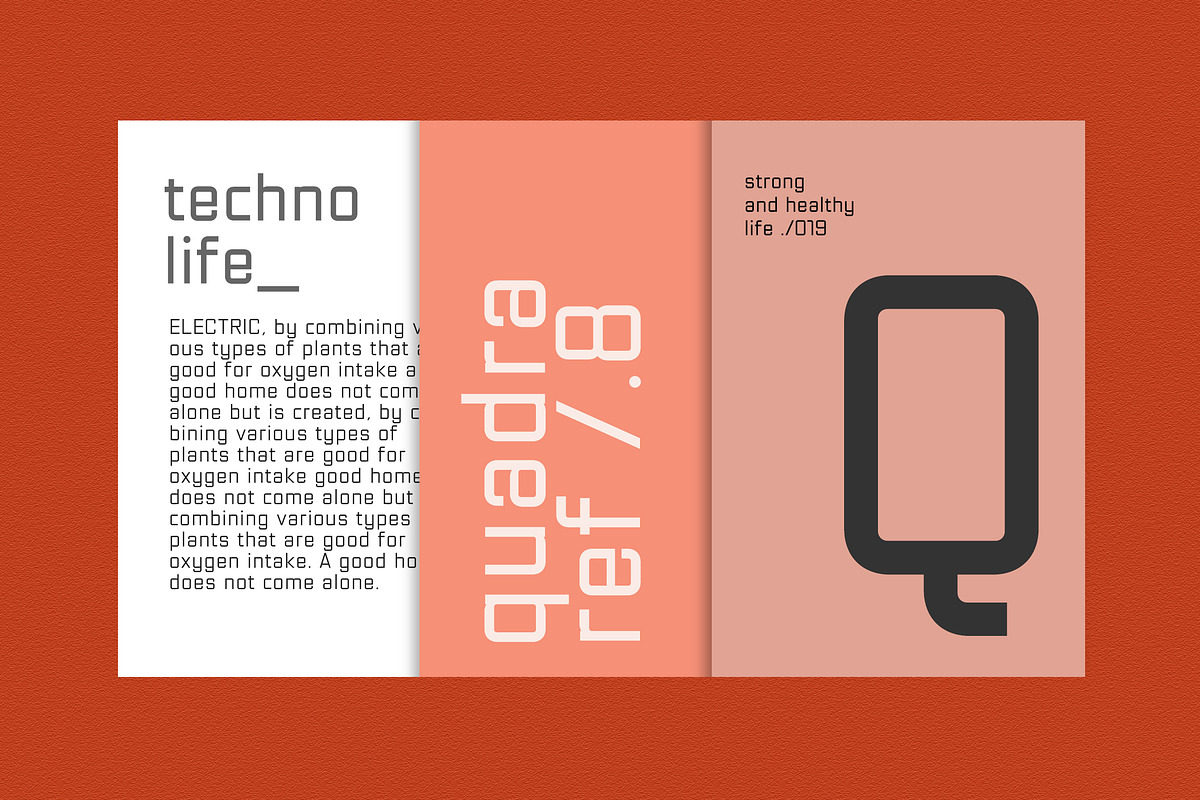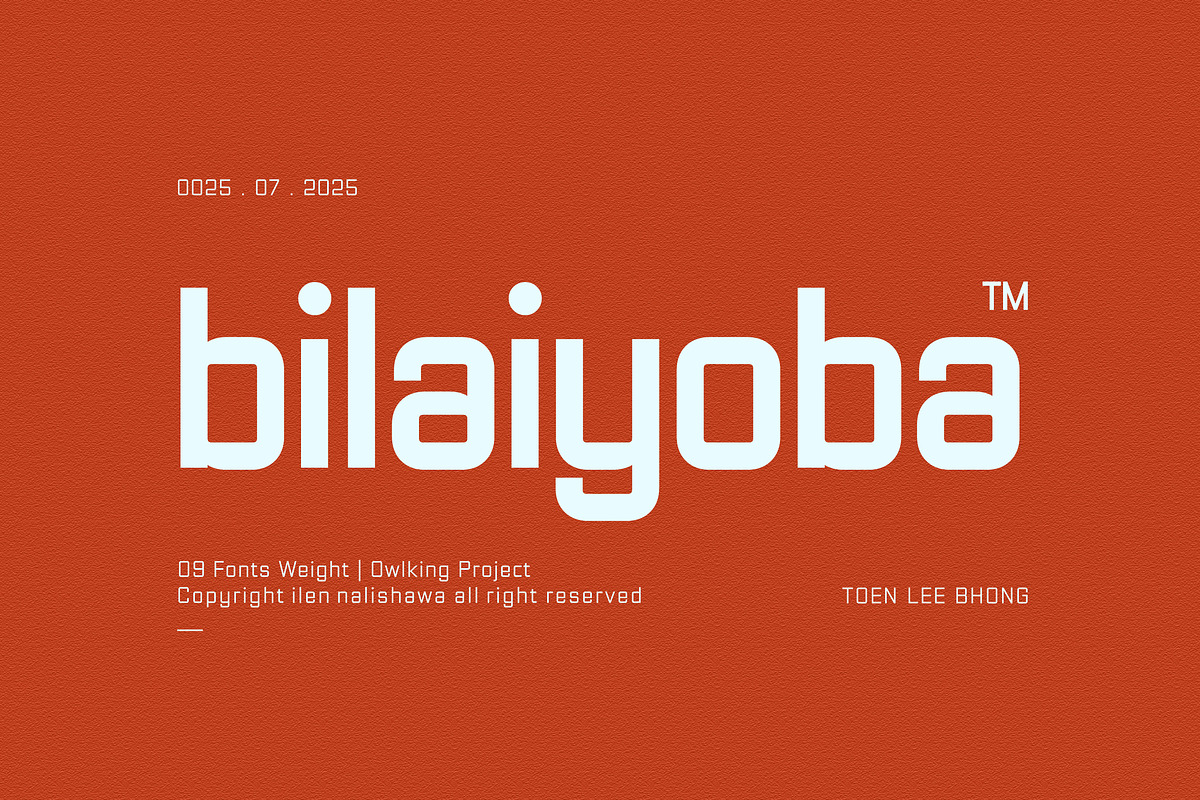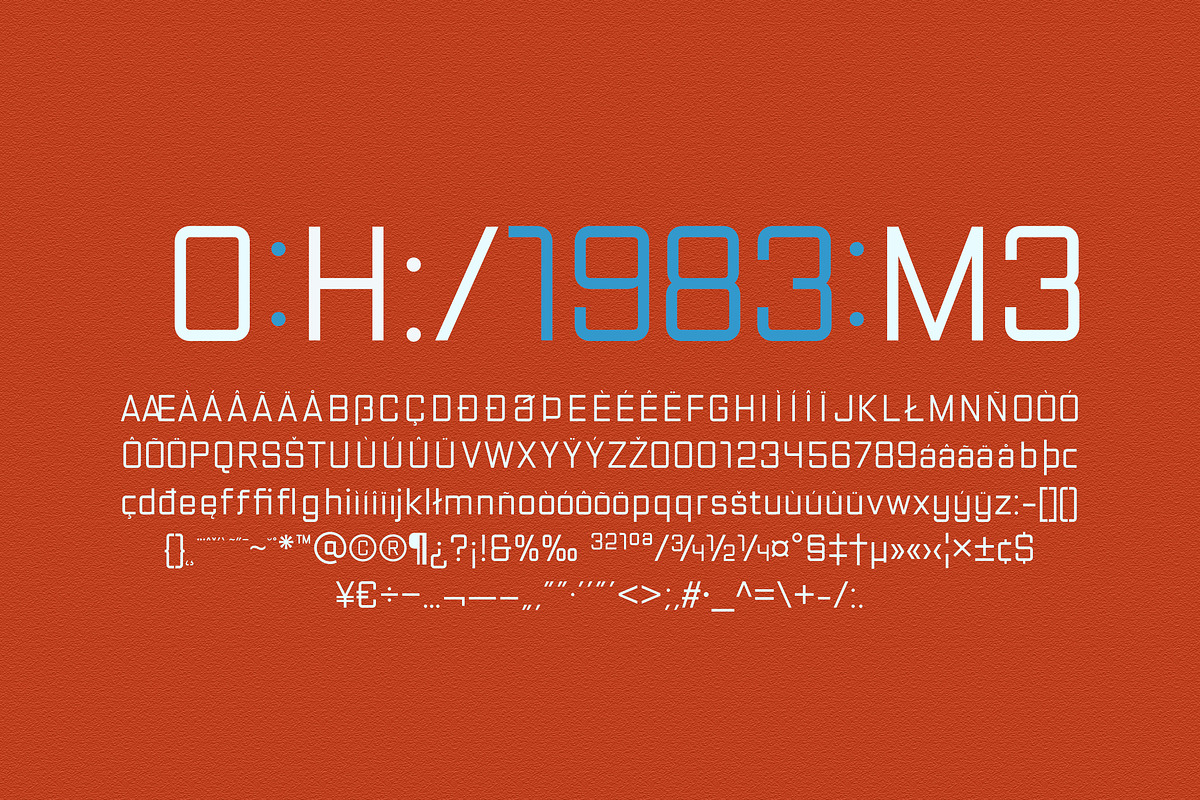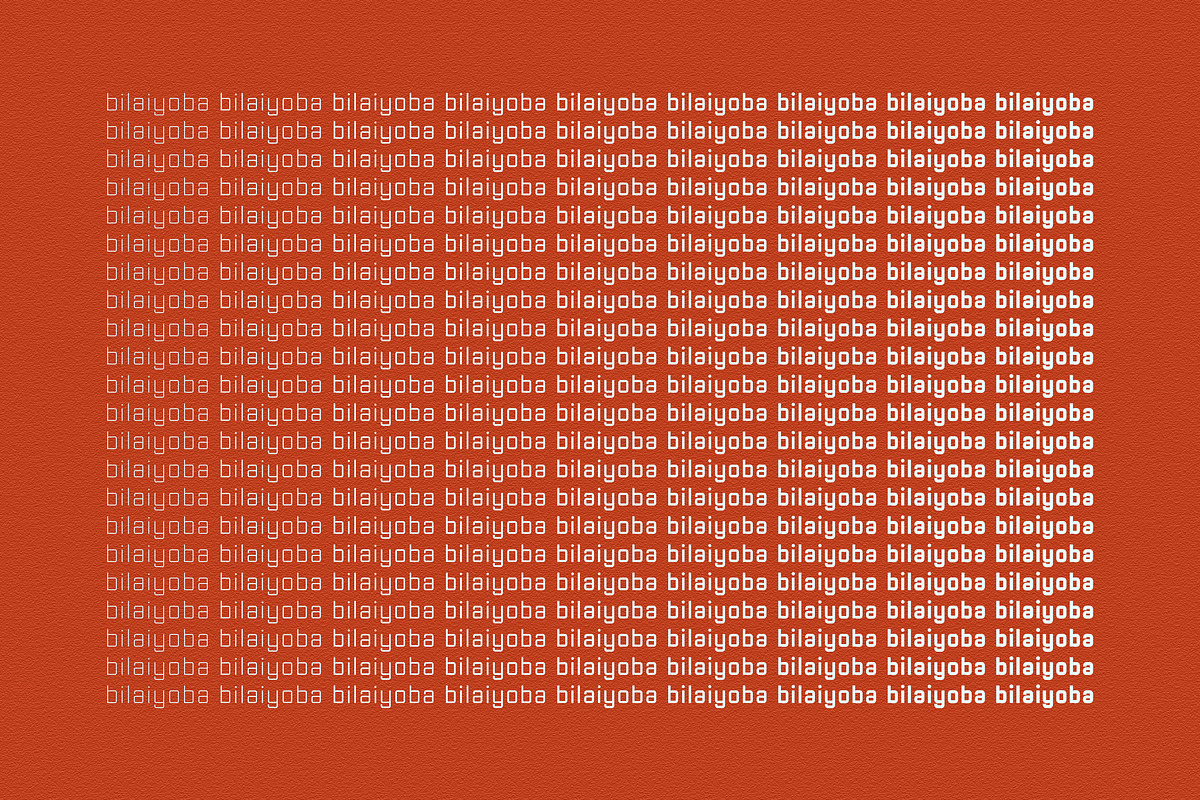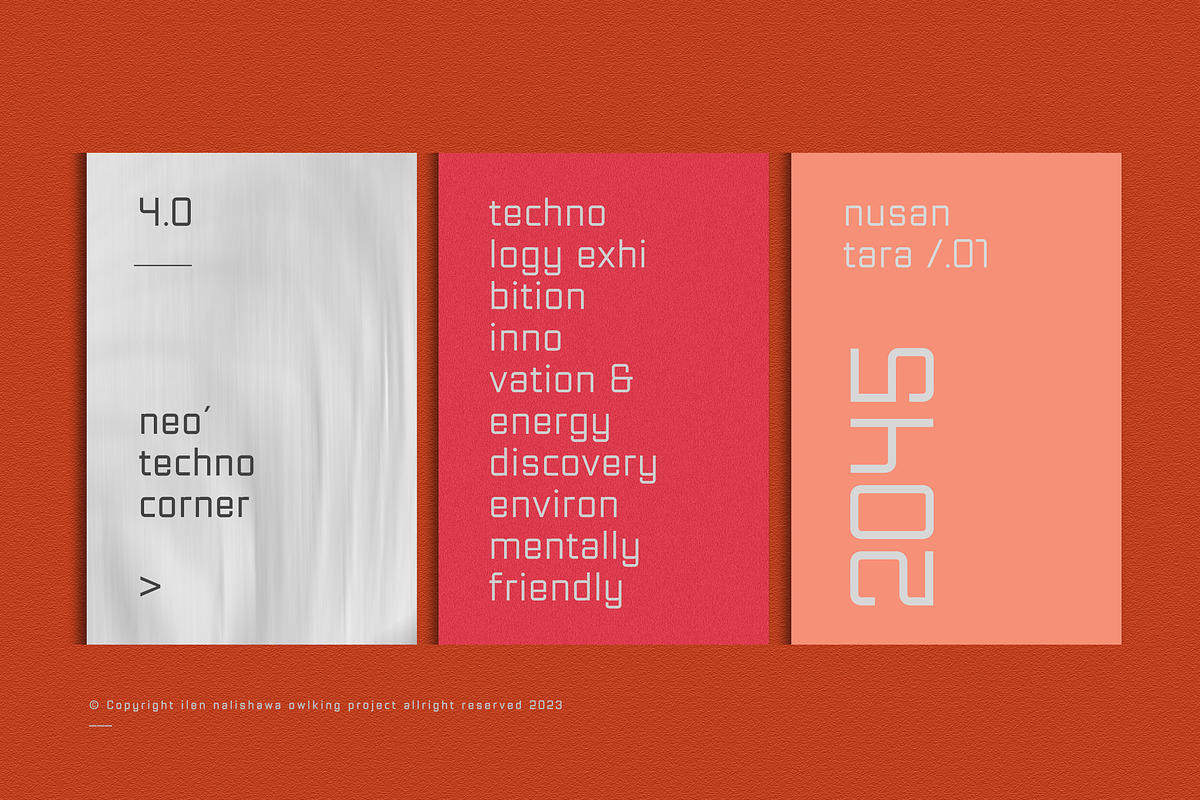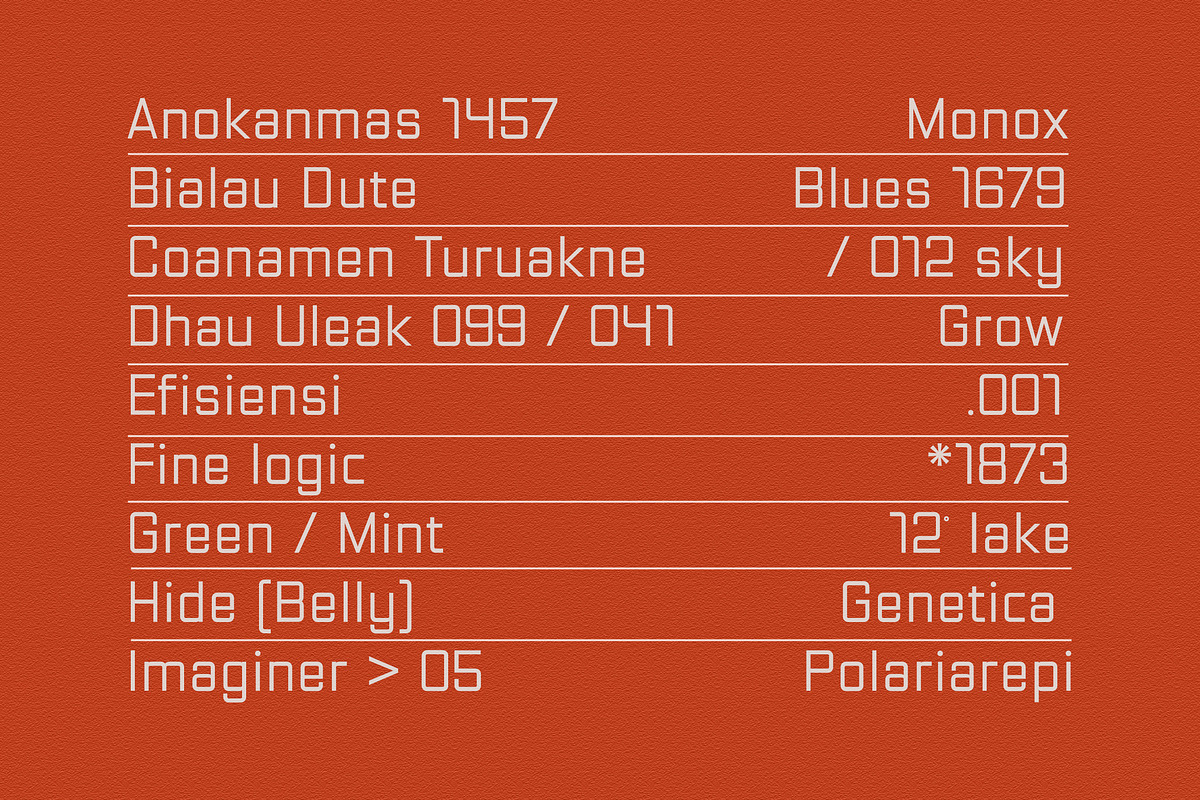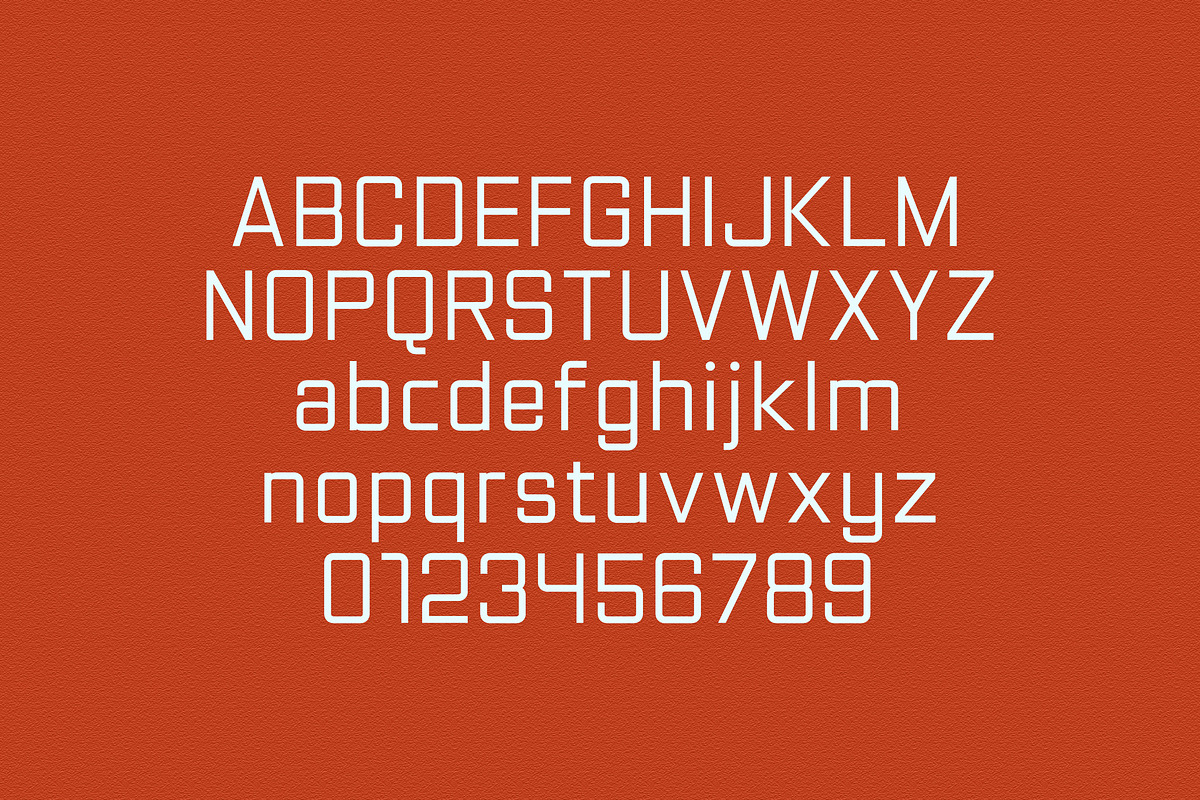
Bilaiyoba
Bilaiyoba is a sans serif font designed with nine weights, ranging from thin to bold. This font has a more modern and futuristic style. Its capital letters are perfect for short, bold titles. It also features lowercase letters for use in short sentences. This font is also suitable for large titles in the technology and sports fields, Have Fun.
THIN EXTRA LIGHT LIGHT REGULAR MEDIUM SEMIBOLD BOLD EXTRA BOLD BLACK